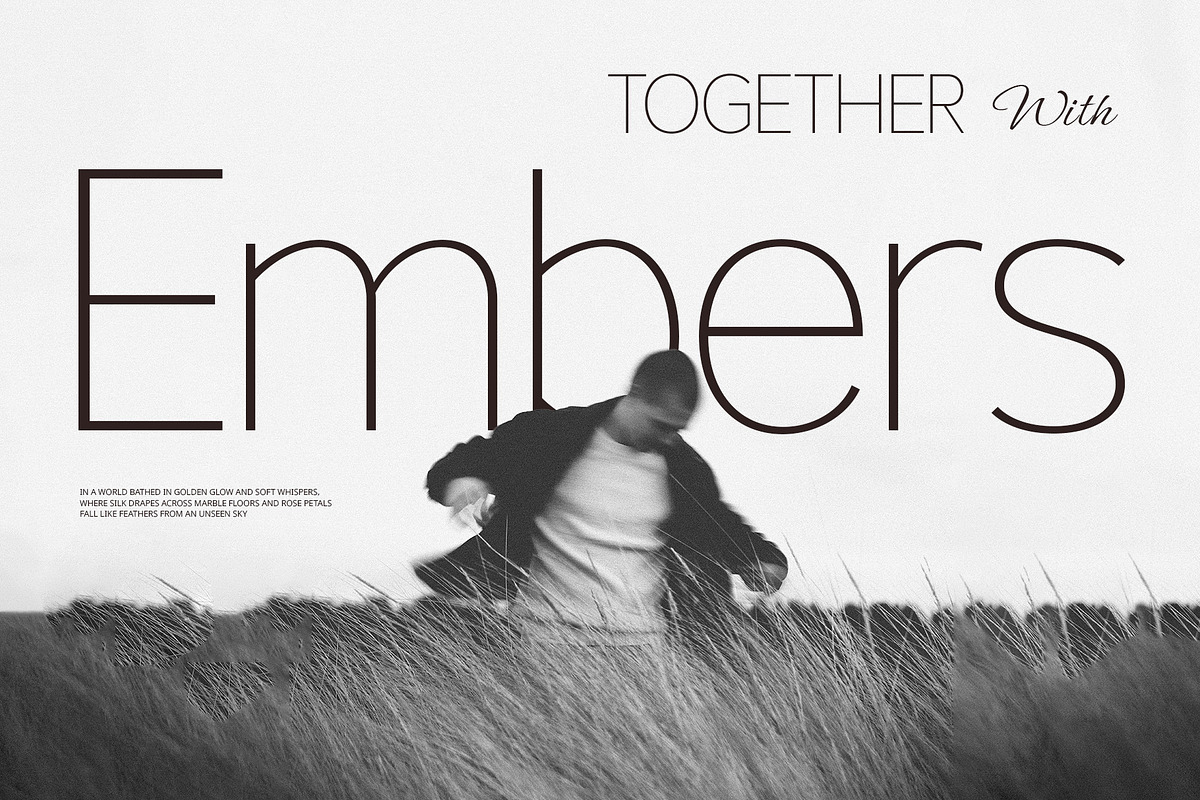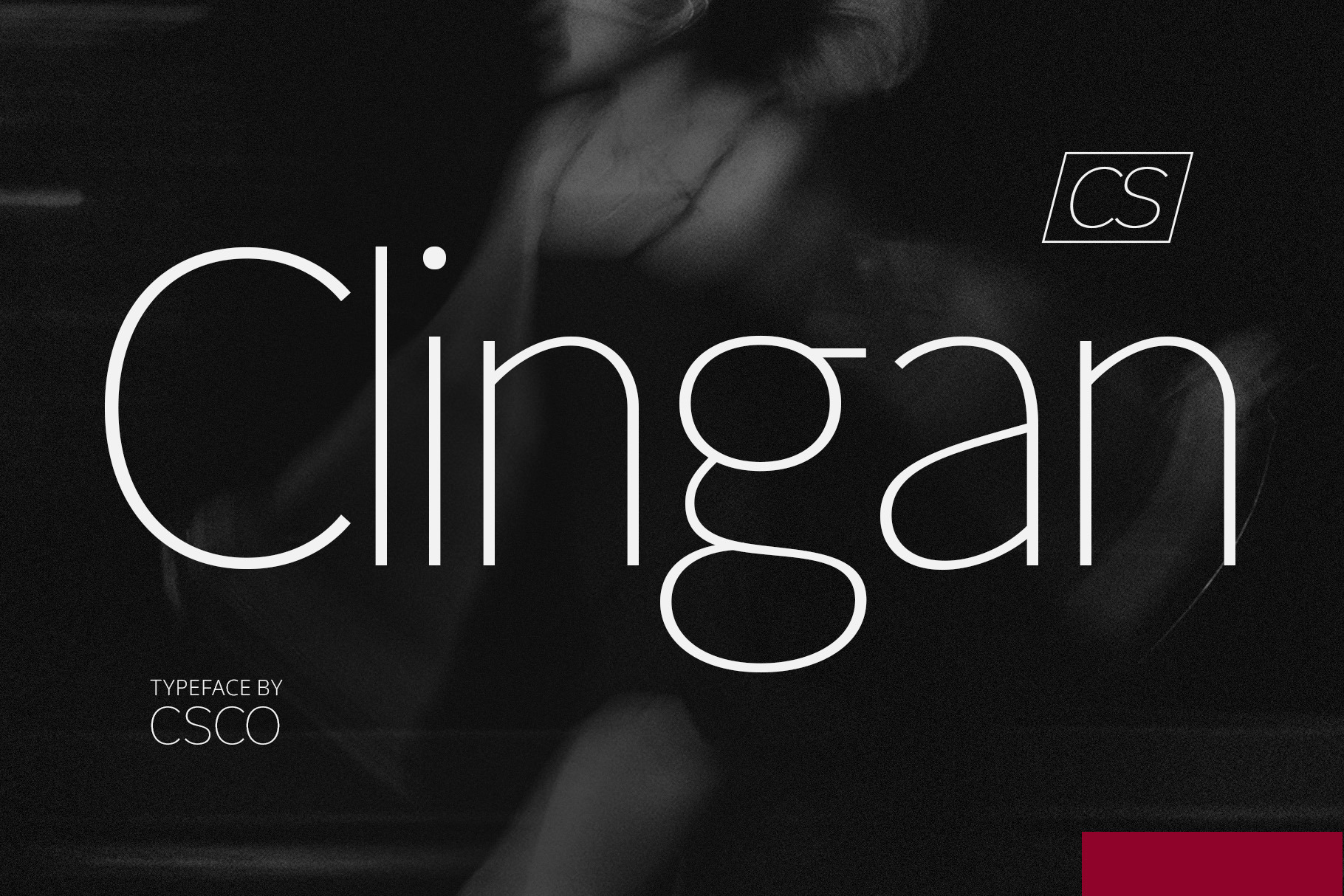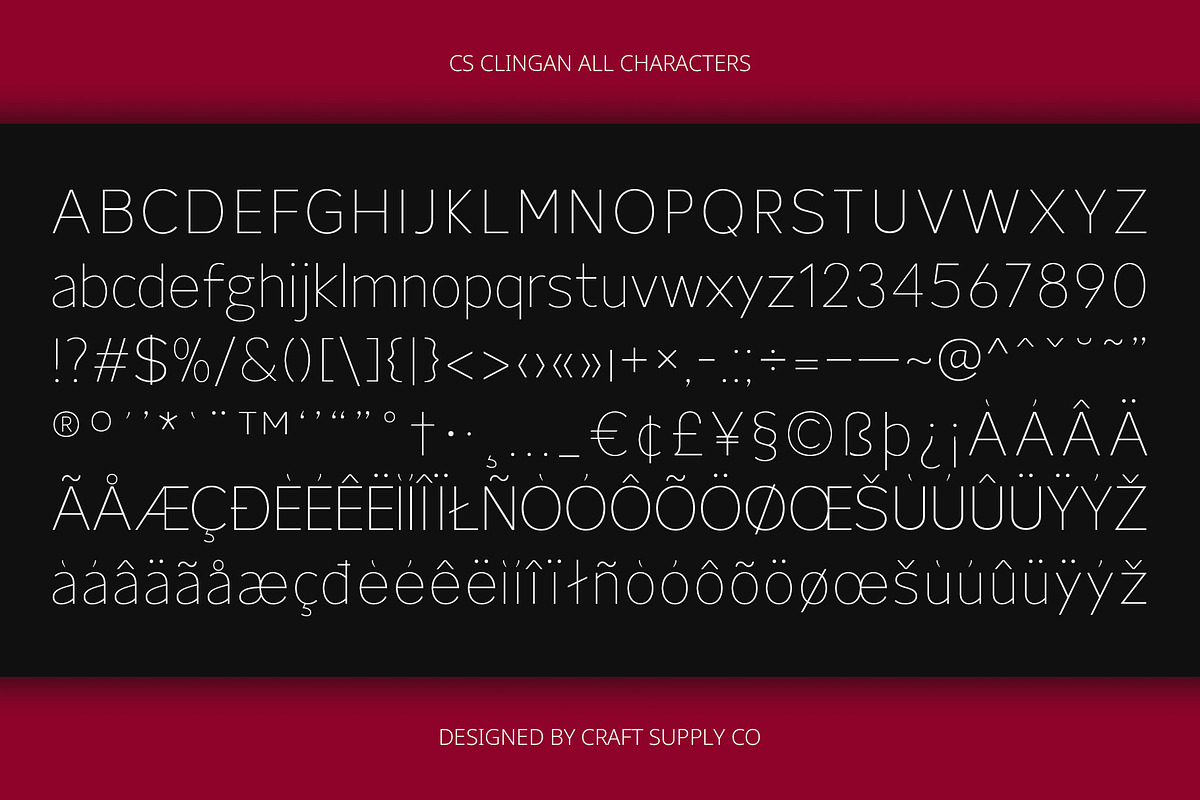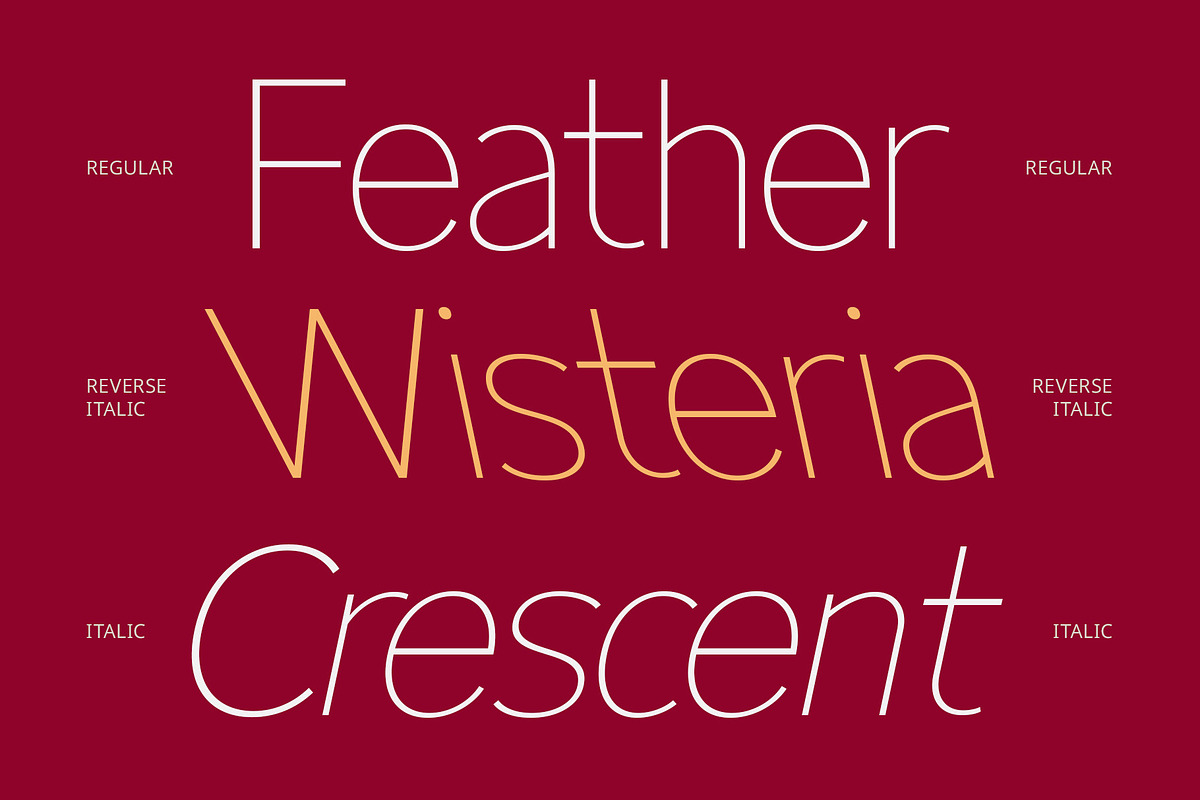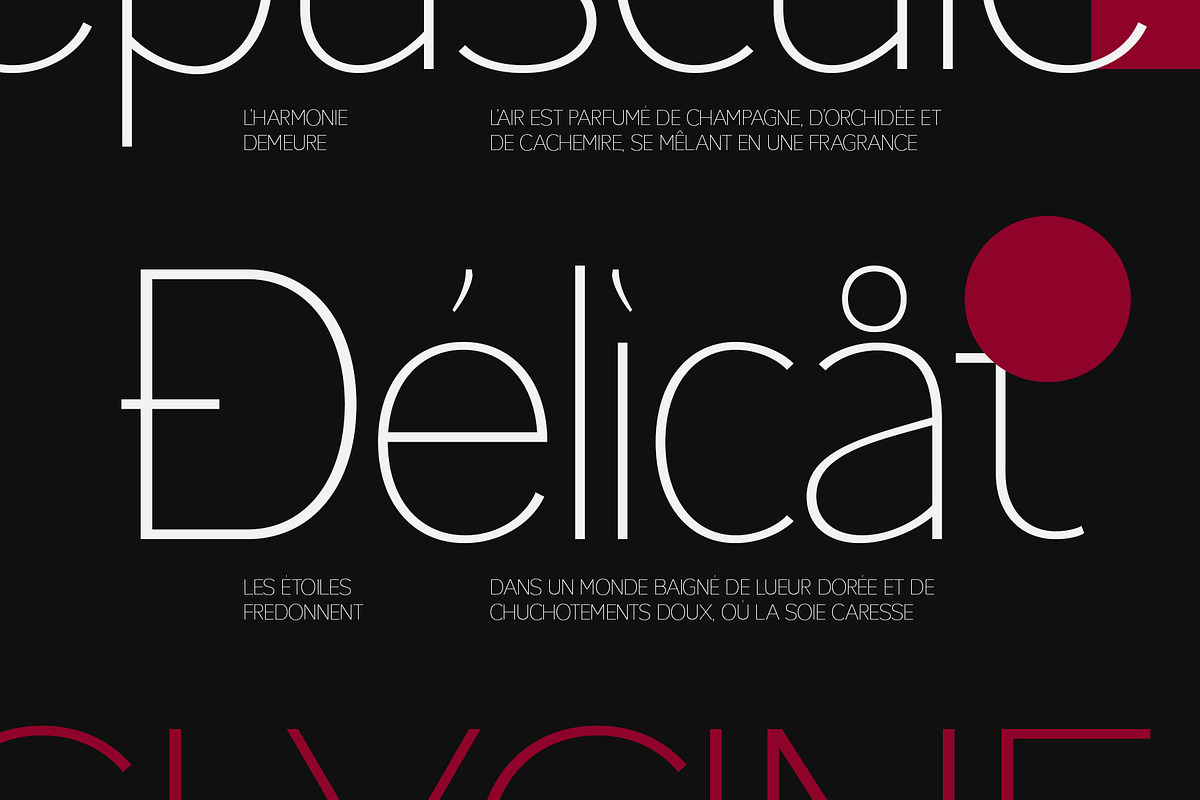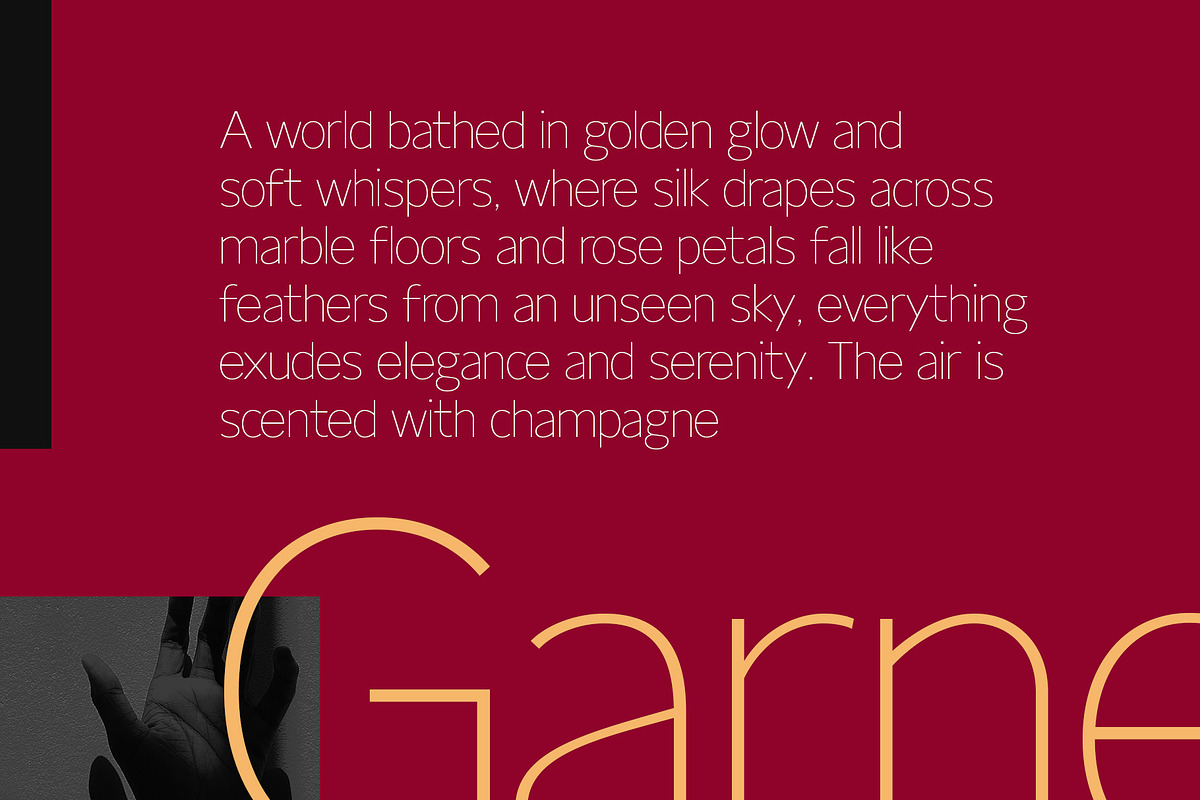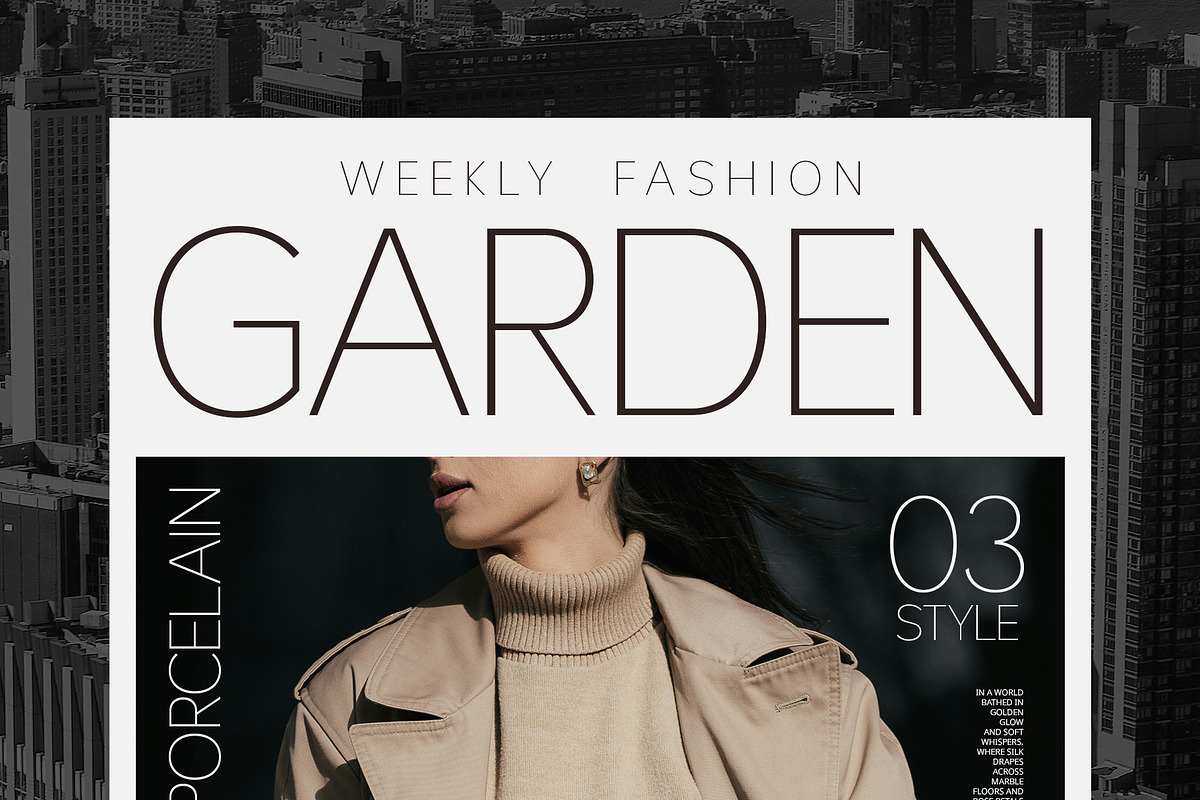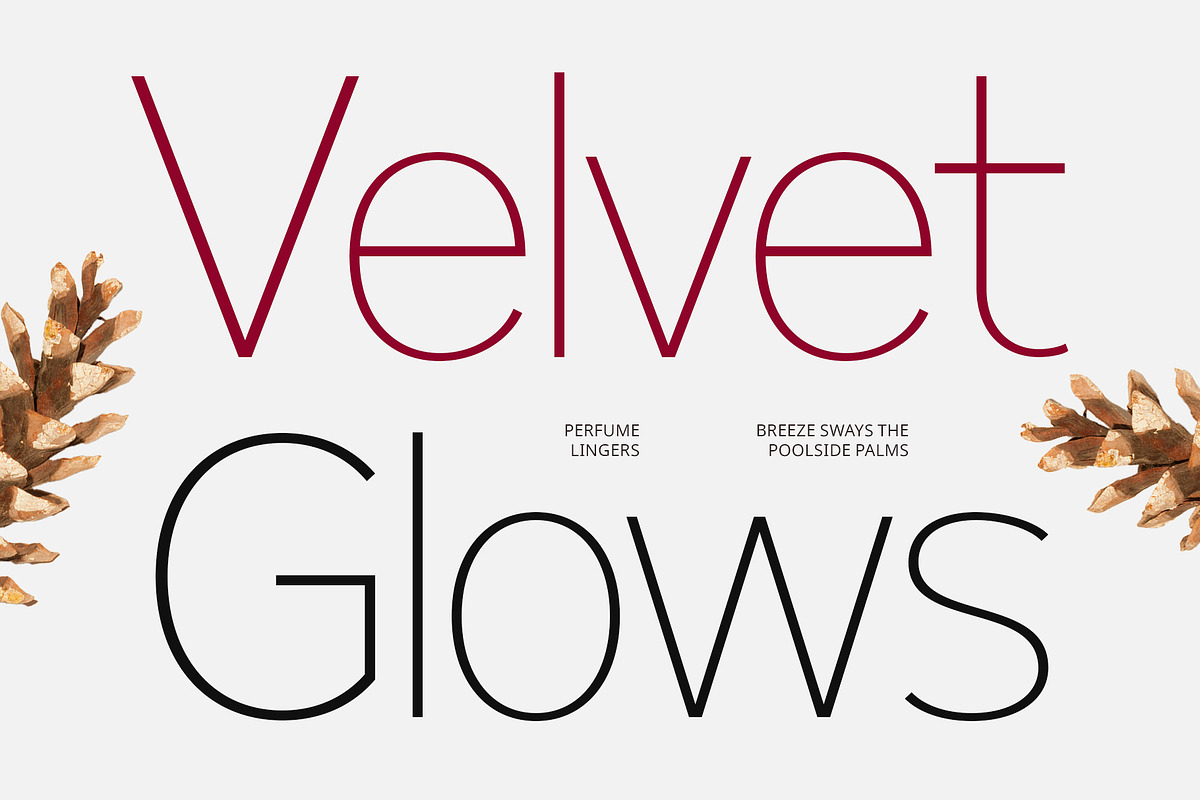
CS Clingan – Contemporary Font
CS Clingan – A Contemporary Sans Serif Font with Elegant Minimalism
Thin, Refined, and Elegantly Modern CS Clingan is a modern sans serif font defined by its thin strokes, minimalist shapes, and clean structure. Its carefully constructed letterforms radiate a sleek and contemporary aesthetic, perfect for conveying a professional, elegant, and understated impression. The font embraces negative space with grace, resulting in a calm and airy composition that elevates visual clarity.
Designed for Modern Sophistication With a design that is both lightweight and refined, CS Clingan speaks the language of subtle luxury and quiet confidence. It’s well-balanced and neutral enough to suit a wide variety of design needs while offering just enough personality to make your content feel distinctive and stylish.
Perfect for Branding, Editorials, and Digital Interfaces CS Clingan shines in modern branding, editorial layouts, UI/UX design, and any creative work that values clarity, elegance, and modern appeal. Whether used in fashion, tech, lifestyle, or beauty industries, it provides a sense of structure and style without overwhelming the design.
Minimal Yet Memorable This font is an excellent choice for designers seeking a typeface that embodies minimalism without sacrificing identity. It works beautifully for logos, headers, web design, and high-end packaging, where clarity and elegance are essential.
- CS Clingan Regular
- CS Clingan Italic
- CS Clingan Reverse Italic